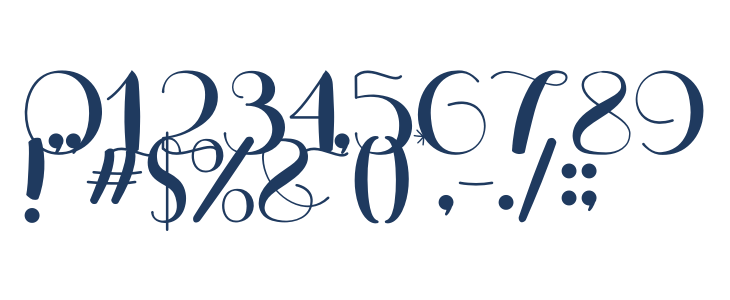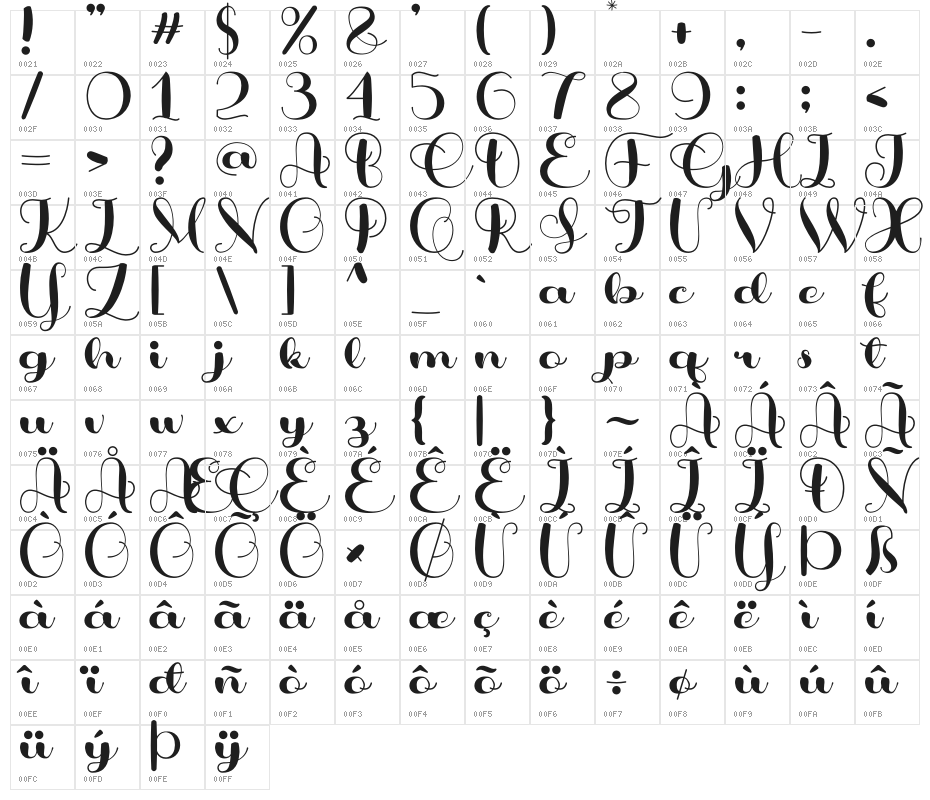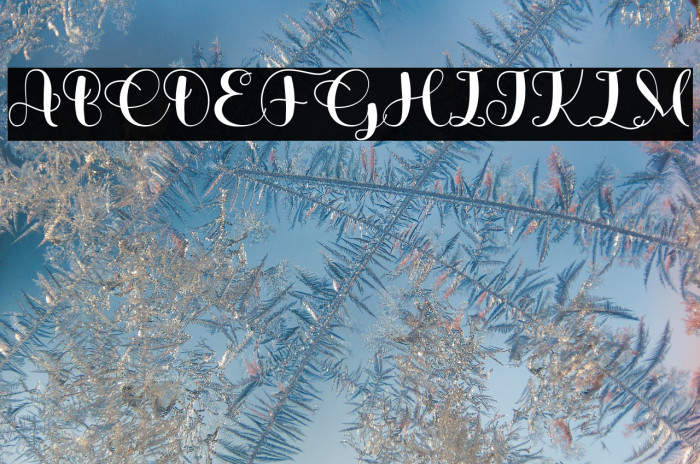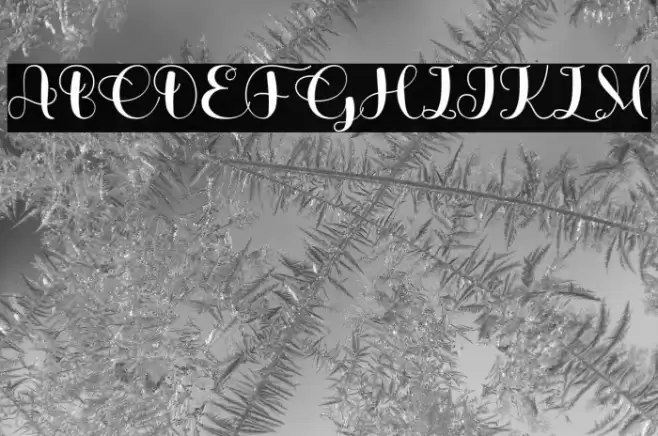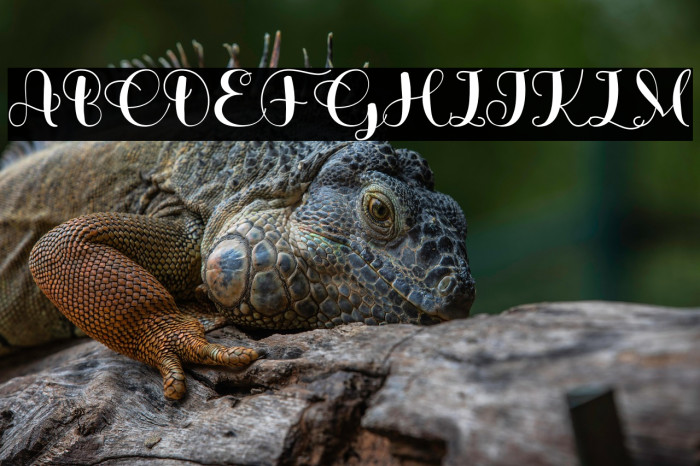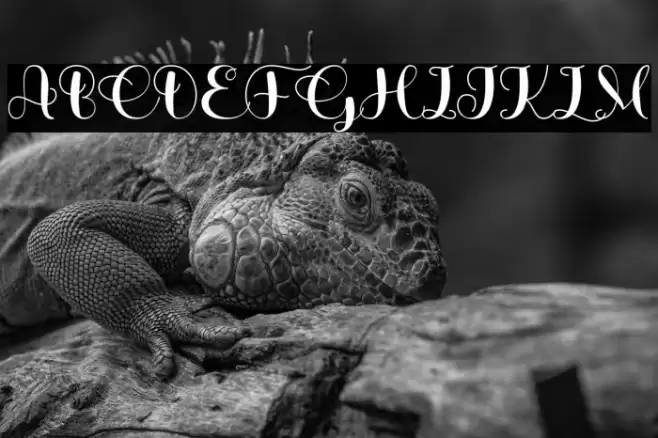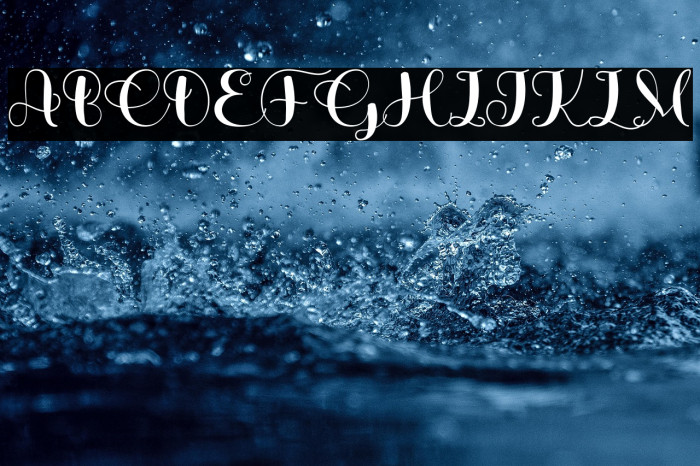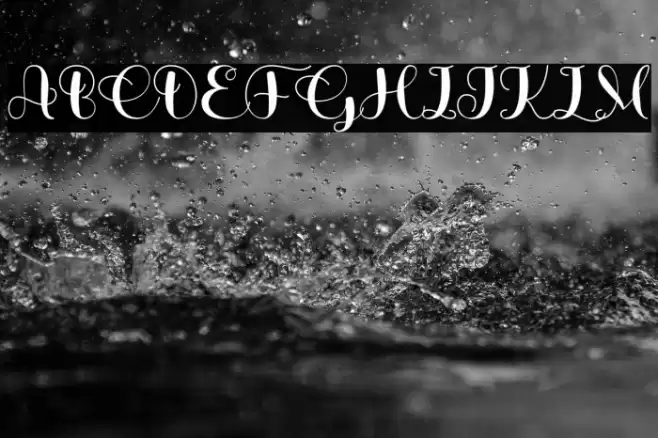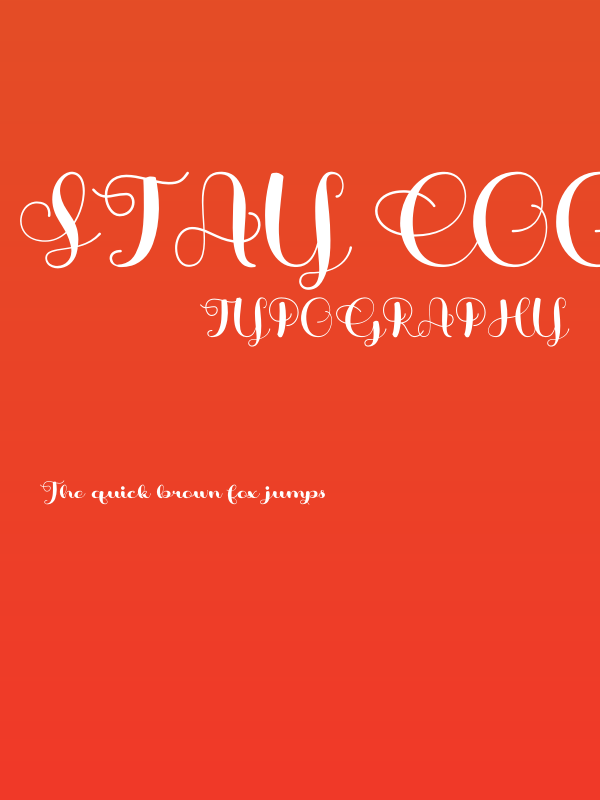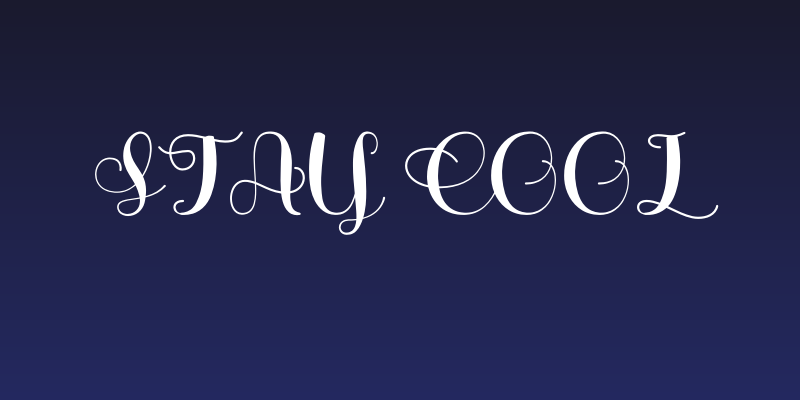
Stay Cool Font
Stay Cool Description
This font features a playful and elegant script style with a flowing, cursive design. The uppercase letters are characterized by their intricate loops and swirls, adding a touch of sophistication and flair. The lowercase letters maintain a consistent flow, with smooth curves and rounded edges that enhance readability while preserving the decorative essence. The numerals are equally stylish, with a balanced mix of curves and straight lines. Special characters are thoughtfully designed to complement the overall aesthetic, making this font versatile for various creative applications.